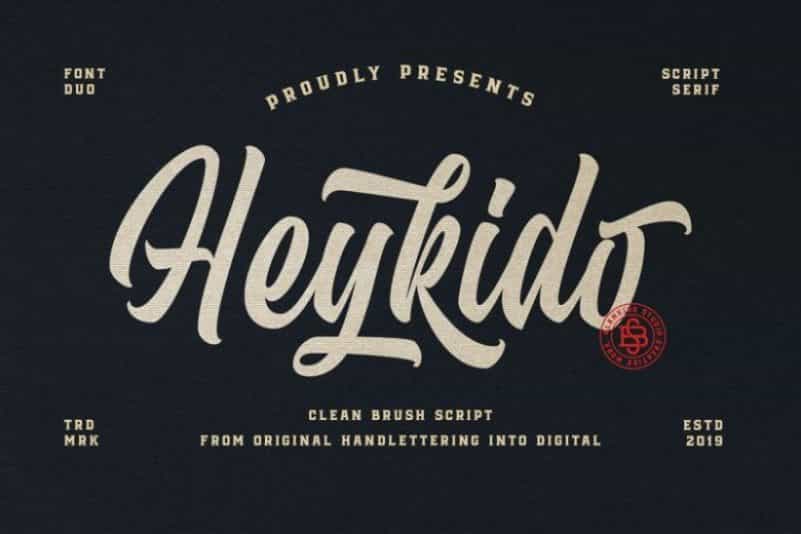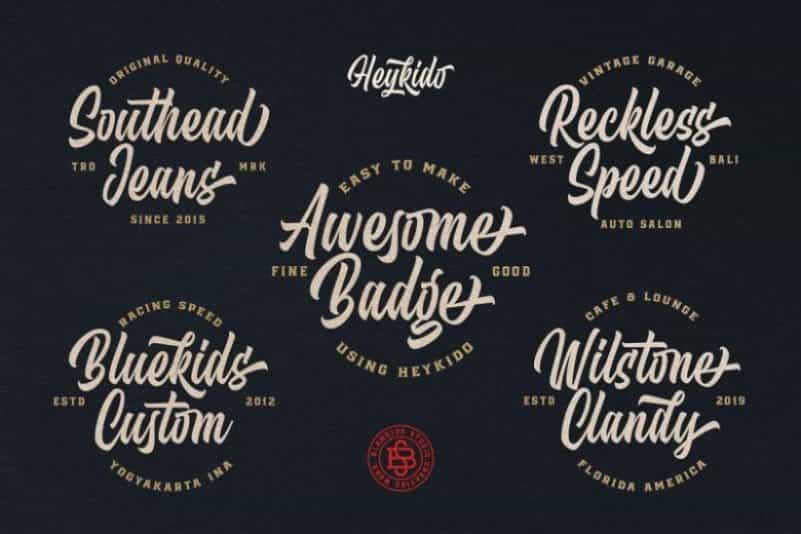
Introducing Heykido Calligraphy Script. It is based on the urban script fonts with sharp and beautiful looking letters to come up with fonts that are modern, trendy and elegant. Heykido was created with OpenType features including stylistic alternates, stylistic sets & ligatures suitable for logotype, poster, badge, book cover, t-shirt design, packaging, and much more.